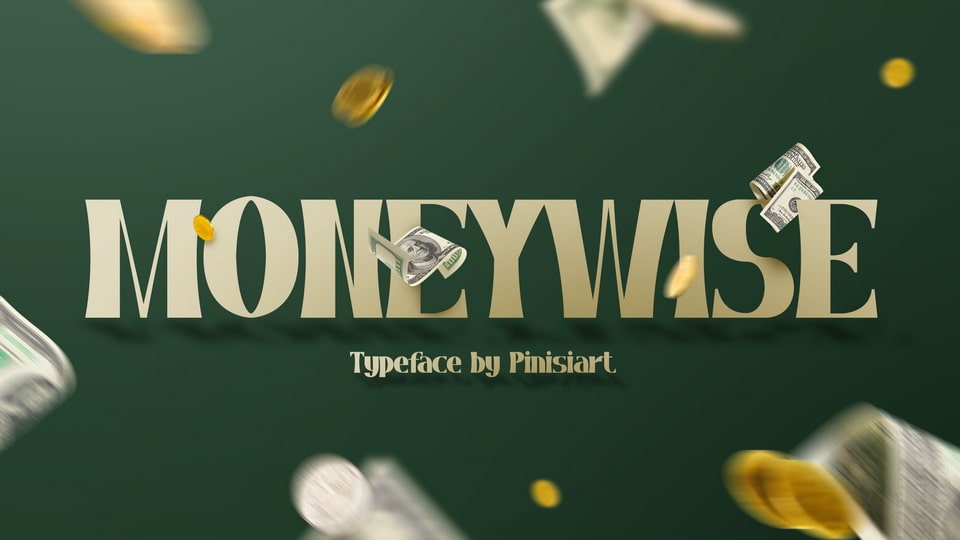
Download Moneywise font, a business display typeface. Ka-ching! money will bring happiness and prosperity to those who could put that in their hand, not in their head.